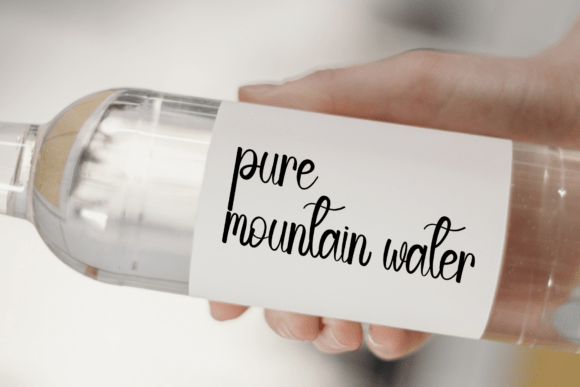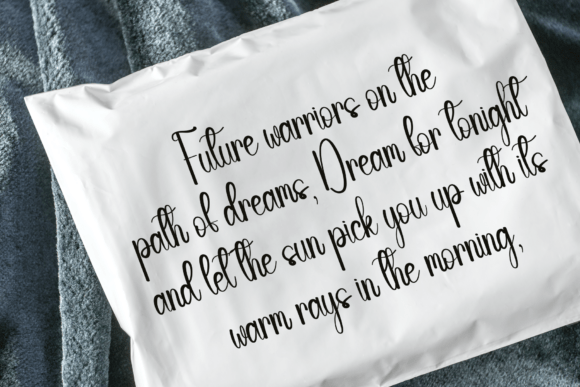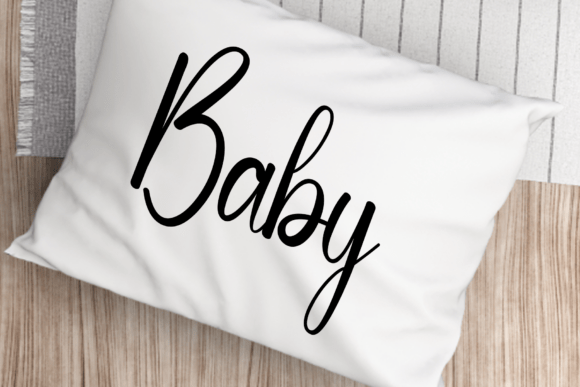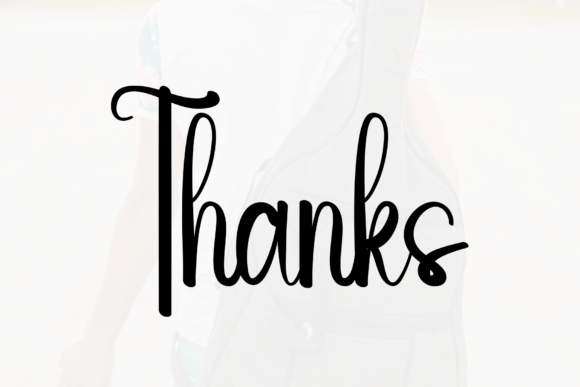
Introduction to School January Font
Have you ever stumbled upon a design element that instantly sparks inspiration, transporting you to a world of endless creative possibilities? For many designers, this moment is a familiar experience, often triggered by a beautiful font. As I sit here, sipping my morning coffee and browsing through my favorite design resources, I’m reminded of the School January Font – a charming handwritten font that embodies the essence of heartfelt perfection.
With its smooth strokes and organic lines, the School January Font exudes a relaxed atmosphere, making it an ideal choice for a wide range of design projects. From branding and invitations to social media graphics, this font is a valuable addition to any designer’s toolkit. Whether you’re working on a high-quality project or simply looking for a unique element to elevate your design, the School January Font is sure to impress.
Key Features of School January Font
- High-quality design resource perfect for creative projects, such as educational materials, presentations, and more.
- Features a transparent background, allowing for easy integration with various design elements.
- Designed with a unique, modern aesthetic, making it ideal for contemporary creative projects.
Honest Review: School January Font
I recently came across the School January Font and was excited to dive in and see what it had to offer. As a designer, I’m always on the lookout for high-quality design resources that can elevate my creative projects.
One of the standout features of this font is its transparent background, which makes it super easy to work with and integrate into your designs. This feature is especially useful for designers who want to create a seamless and professional look for their clients.
Here are some of the things that work well with the School January Font:
- High-quality design with a unique aesthetic
- Easy to use and customize for any project
- Only a limited number of styles and weights are available
- The font may not be suitable for certain types of projects, such as print materials or complex layouts
Overall, I would say that the School January Font is a great addition to any designer’s toolkit. While it may have some limitations, its unique design and ease of use make it a valuable resource for creative projects. ⭐️
Tips for Getting the Most Out of School January Font
Use the School January Font on a transparent background to create a unique and eye-catching design. Experiment with different font sizes and styles to add depth and visual interest to your project. With its high-quality design, the School January Font is perfect for a variety of creative projects.
The School January Font is ideal for educational projects, such as creating presentations for school or designing a website for a university. It’s also great for creative projects, such as designing a brochure or creating a social media graphic. With its free download and transparent background, the School January Font is a valuable design resource for any project.